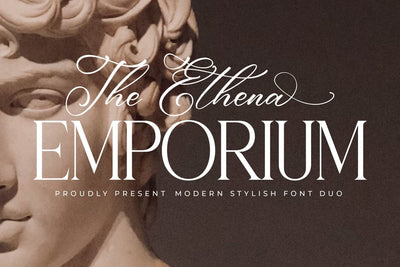
Ethena Emporium Font Duo
Proudly present Ethena Emporium Font Duo , created by Storytype,
A serif and script typeface that has own unique style & modern look.